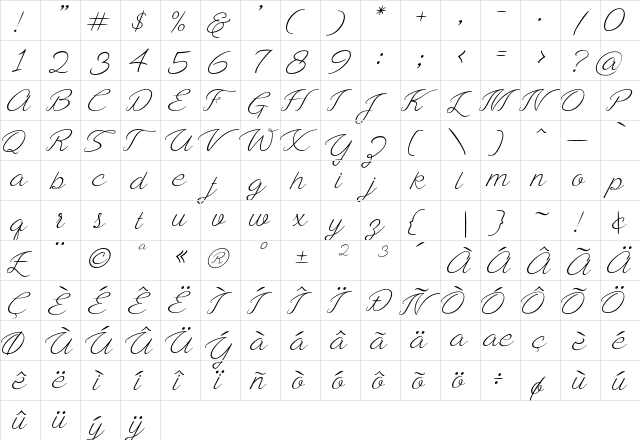
Ayla Script Regular
| Foundry | Ianmikraz |
| Designer | Ianmikraz |
Design Context for Ayla Script Typeface
Ayla Script brings a calligraphic fluidity to the page — its connecting strokes and expressive curves give it an unmistakably human quality.
Font Pairing: Combine Ayla Script with a simple geometric sans for maximum contrast — the tension between flowing curves and clean structure is a classic typographic pairing.
Pro Tip: Use Ayla Script for short runs of text — names, titles, or taglines. Extended body copy in script faces tires the eye quickly.